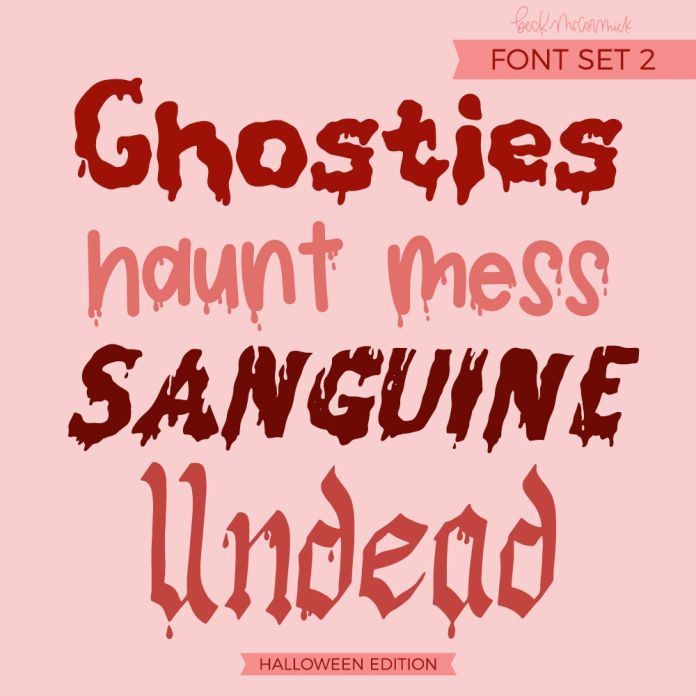
This set of 4 Halloween-themed fonts is versatile for all of your spooky design needs.
This set includes:
Ghosties - A Spooky Sans
Haunt Mess - A Drippy Sans
Sanguine - A Display Font
Undead - A Bloody Blackletter Font